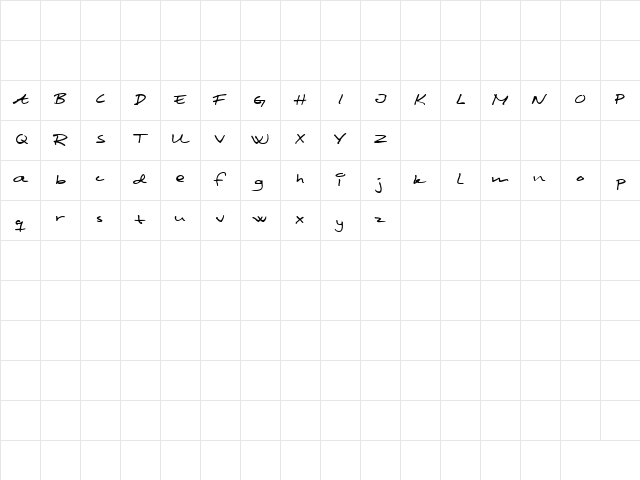
Scribbled Monkey Regular
Design Context for Scribbled Monkey Typeface
Scribbled Monkey is a composed and adaptable typeface that performs quietly and consistently across a wide range of design contexts.